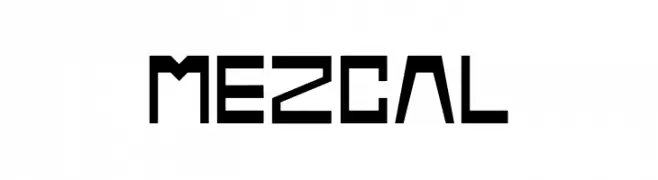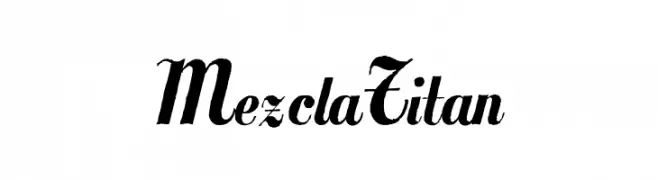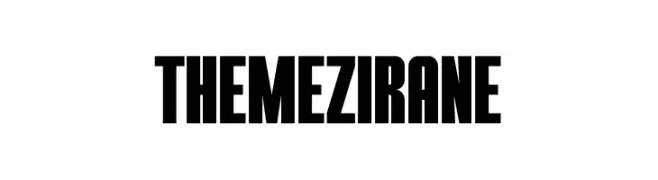
A bold, geometric font with a modern, industrial aesthetic.
A bold, decorative font with elegant flourishes and high contrast.
A bold, decorative font with sharp, angular strokes and a mystical flair.
A bold, rounded font with smooth curves and a modern, friendly style.
A geometric, modern font with a unicase style and dotted accents.
A bold, condensed font with thick, uniform strokes for a strong visual impact.
A bold, modern font with strong, thick strokes and tight spacing.
A bold, geometric font with strong, blocky letterforms and high contrast.